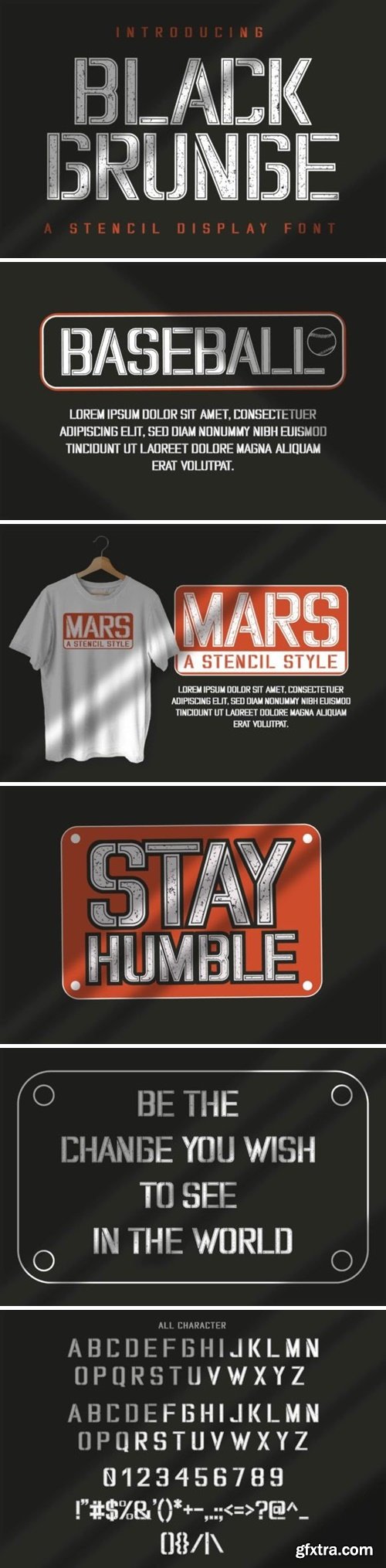
Black Grunge Font
Introducing Black Grunge, a captivating collection of stencil-style fonts designed to turn heads. This exquisite set includes both a regular and a grunge version, enabling the creation of distinctive designs that speak volumes about your style. Perfectly suited for applications with a militant edge, Black Stencil effortlessly adds a touch of authority to any project it graces. Its versatility shines when crafting everything from logos and small business branding to t-shirt designs, book covers, and stationery. Amplify your marketing efforts, elevate your blog or magazine, and set your brand apart with the distinctly vibrant and innovative appeal of Black Stencil!